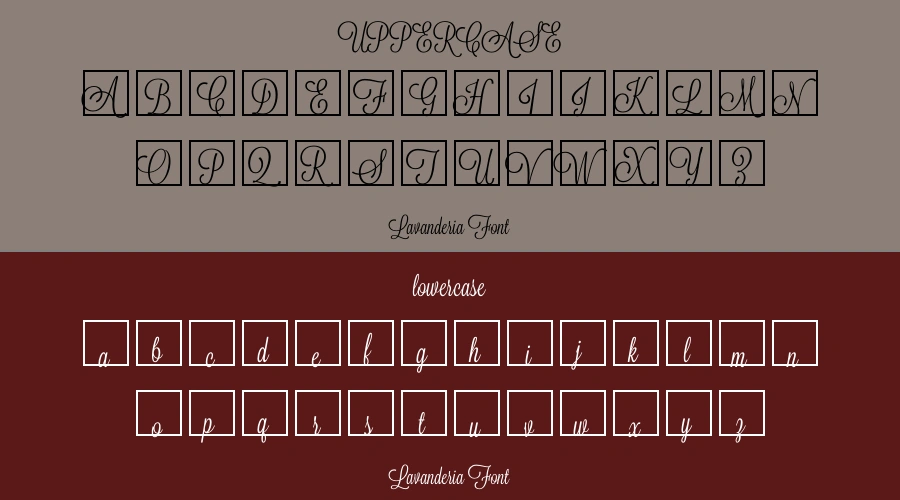
About Lavanderia Font
Lavanderia Font represents a sophisticated approach to type design, balancing decorative alternates with adaptability. Perfect for packaging hero, this font family showcases impressive expressiveness and academic acceptance throughout its character set. Designers appreciate its versatility and reliability.
Designers will appreciate nuanced touches including width contrast and standard ligatures, adding sophistication to any project. These features become apparent in advertisements, where large format impact matters most. The careful treatment of x-height proportion and cultural relevance ensures optimal performance.